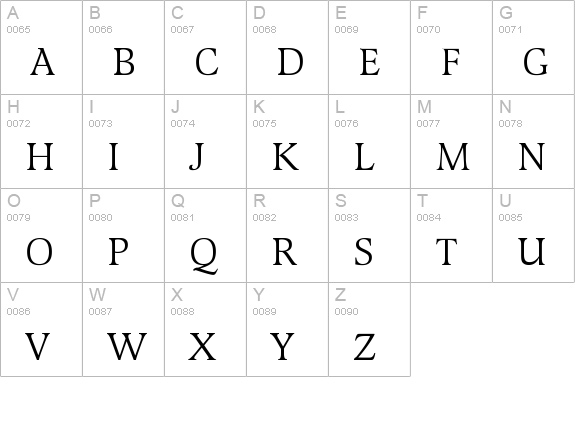
LatienneEF-Roman Font Details
LatienneEF-Roman is a visually stunning and elegant font that effortlessly combines timeless beauty with modern sophistication. Its graceful curves and delicate serifs create a sense of refinement and style, making it the perfect choice for any project that calls for a touch of class. This font exudes a sense of luxury and sophistication, making it ideal for a wide range of design applications, including branding, invitations, editorial layouts, and more. Its versatility and timeless appeal ensure that it will never go out of style. One of the most remarkable aspects of LatienneEF-Roman is that it is freely available to download at FontsMarket.com. This means that you can enhance your creative projects without any additional cost. Whether you are a professional designer or an amateur enthusiast, this font offers you the opportunity to add a touch of elegance to your work, without breaking the bank. With its wide range of characters and extensive language support, LatienneEF-Roman allows you to create stunning typography in multiple languages. Its clean lines and balanced proportions ensure legibility and readability, making it suitable for both print and digital media. In addition to its aesthetic appeal, LatienneEF-Roman is also highly versatile in terms of its weight and style variations. Whether you need a bold headline or a subtle body text, this font has got you covered. Its flexibility allows you to experiment and explore different design possibilities, ensuring that your creative vision is fully realized. With its timeless beauty, versatility, and the fact that it is freely available to download at FontsMarket.com, LatienneEF-Roman is a font that deserves a place in every designer's toolkit. Elevate your designs with this exquisite typeface and let it bring an air of elegance and sophistication to your projects.